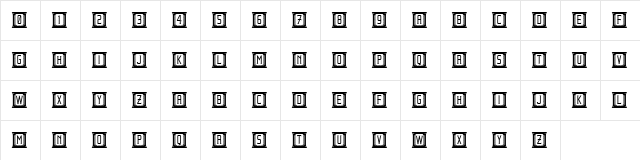
Beholder Capitals Regular
Design Context for Beholder Capitals Typeface
Beholder Capitals is a composed and adaptable typeface that performs quietly and consistently across a wide range of design contexts.
Pro Tip: Use Beholder Capitals in both headline and body roles to test its range before committing to a single application.